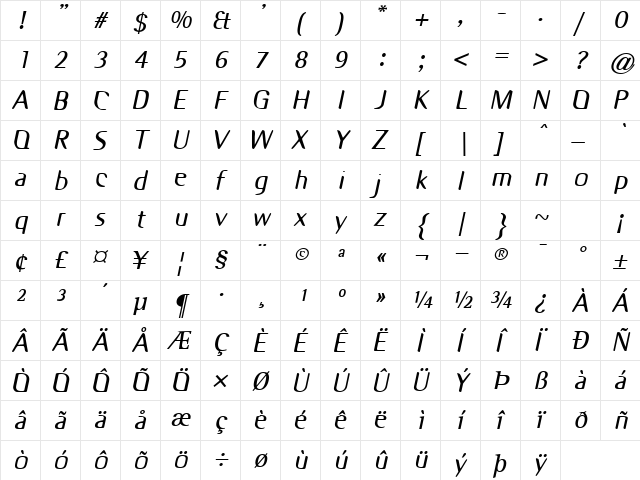
Odyssey BoldOblique
Design Context for Odyssey Typeface
Odyssey offers clean, dependable letterforms without strong stylistic allegiance, making it a practical choice for designers who need flexibility. Its italic angle brings a sense of urgency and motion to the letterforms. Its bold stroke weight gives it real presence on the page.
Pro Tip: Try Odyssey for annotation and caption copy alongside an upright companion — the contrast in angle creates a dynamic but ordered typographic system.